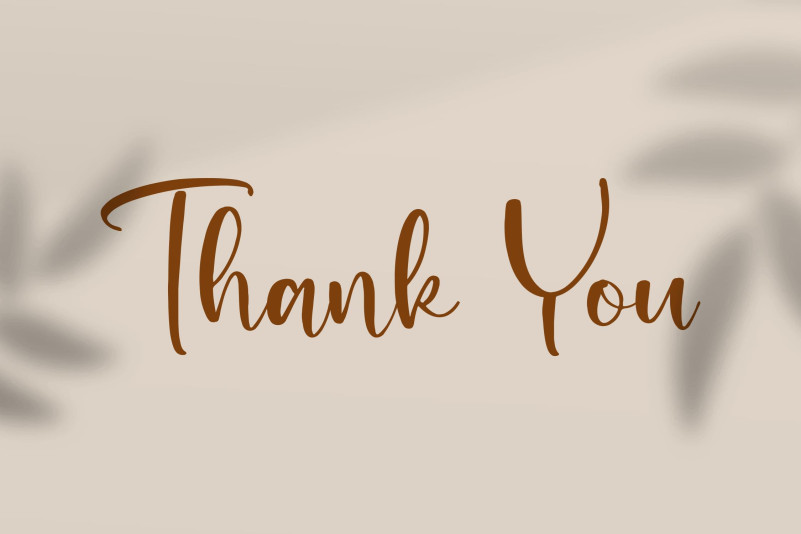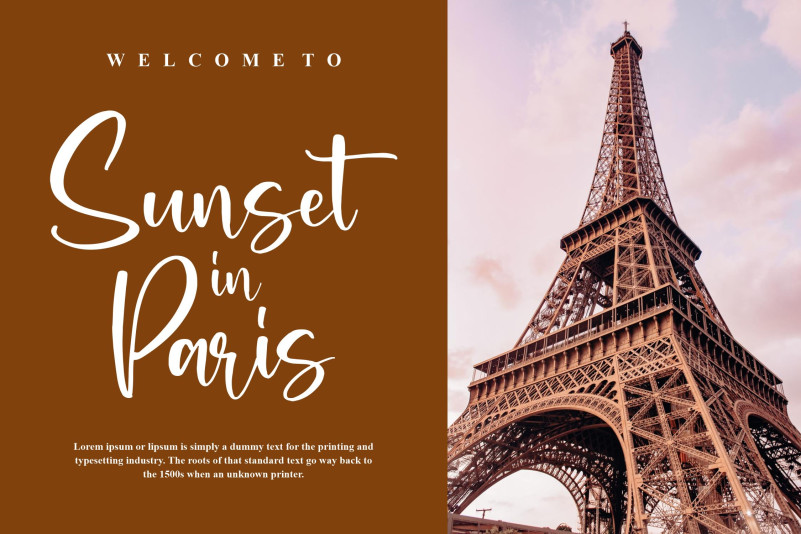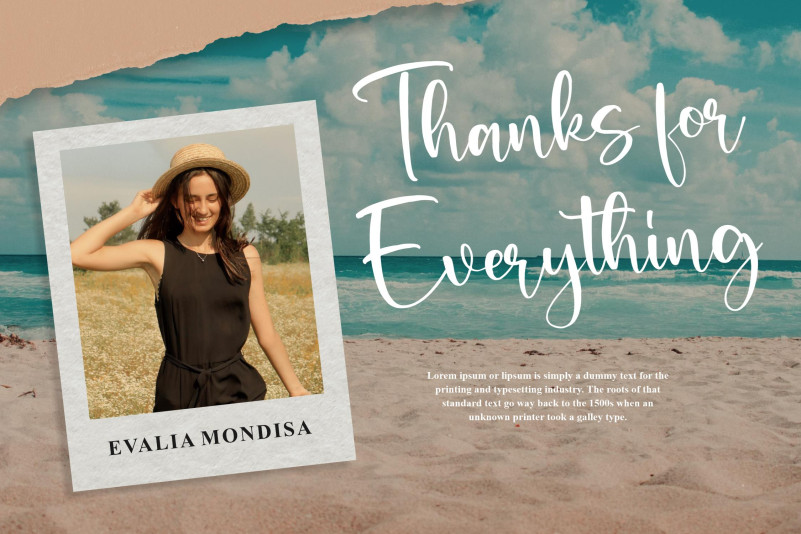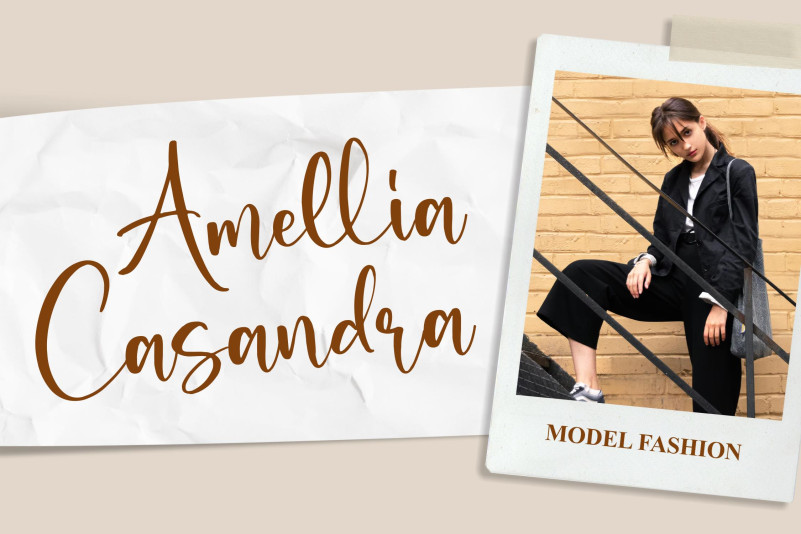
Bronwish Albilone Font
Bronwish Albilone Script Font is a Beautiful Script Font, suitable for any projects such as: logos, branding projects, homeware designs, product packaging, mugs, quotes, posters, shopping bags, t-shirts, book covers, name card, invitation cards, greeting cards, label, photography, watermark, special events, and all your other lovely projects that need a beautiful script taste.